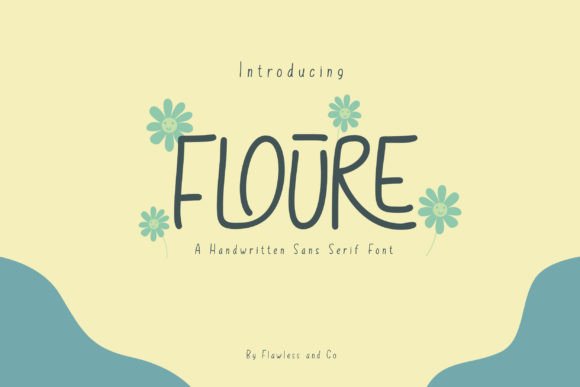
Dive into the world of Floure Font, a beautiful handwritten sans serif masterpiece crafted by Flawless And Co. This font embodies the essence of pure elegance, offering a delightful blend of classic and contemporary styles. Step into a realm of visual artistry where your designs will blossom with a touch of sophistication and allure. Floure Font is not just a font; it's an artistic expression that dances across your digital canvas.
With its organic and friendly letterforms, Floure Font exudes warmth and approachability. It's like having a personal touch in your designs, a reflection of your unique style and personality. Imagine your wedding labels adorned with Floure Font, each letter flowing effortlessly into the next, creating an ambiance of timeless romance. Your invitations will captivate guests with their delicate charm, promising an unforgettable celebration.
Floure Font is a versatile chameleon, adapting seamlessly to various design projects. Whether you're crafting logos, branding materials, or social media graphics, Floure Font adds a touch of grace and sophistication. Its understated elegance elevates the ordinary, transforming it into something extraordinary. Experience the joy of creating designs that resonate with your audience, leaving a lasting impression wherever they see it.
If you seek a font that speaks volumes without uttering a single word, Floure Font is your muse. Its enchanting curves and graceful strokes evoke emotions, drawing viewers into your creative vision. Imagine your social media posts coming alive with Floure Font, captivating audiences with their heartfelt messages. Your designs will transcend mere aesthetics, becoming expressions of your passion and artistry.
Step into the world of Floure Font today and embark on a journey of creative fulfillment. Let your designs blossom with beauty, elegance, and charm. Embrace the magic of Floure Font and elevate your projects to new heights of excellence.